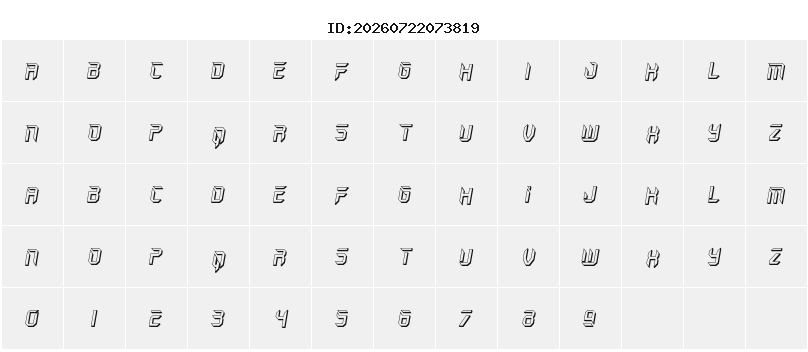
Holo-Jacket 3D Italic Preview
• Font Name: Holo-Jacket 3D Italic
• Font ID: Holo-Jacket 3D Italic: 2015
• Full Font Name: Holo-Jacket 3D Italic
• Version: Version 1.0; 2015
• PostScript Name: Holo-Jacket3DItalic
About Holo-Jacket 3D Italic.ttf
Holo-Jacket 3D Italic.ttf is a modern, elegant sans-serif font designed for ultimate readability and visual harmony. Perfect for branding, headlines, web design, and print materials.